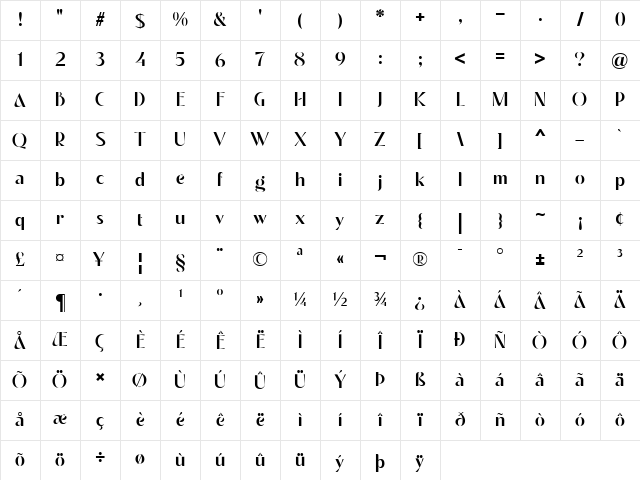
Aesthetic Romance Regular Free Font
Aesthetic Romance Regular
Foundry: Sign Studio
Designer: Sugiyanto
Design Context for Aesthetic Romance
Aesthetic Romance is a composed and adaptable typeface that performs quietly and consistently across a wide range of design contexts.
Pro Tip: Use Aesthetic Romance in both headline and body roles to test its range before committing to a single application.